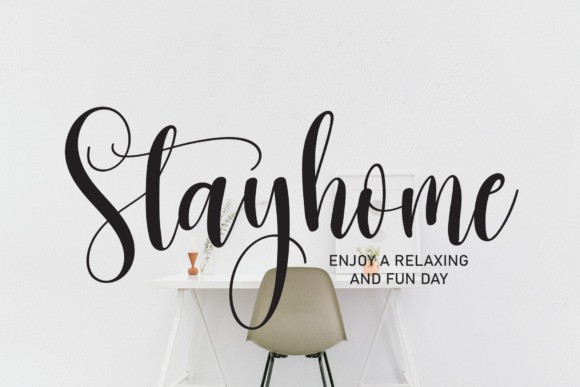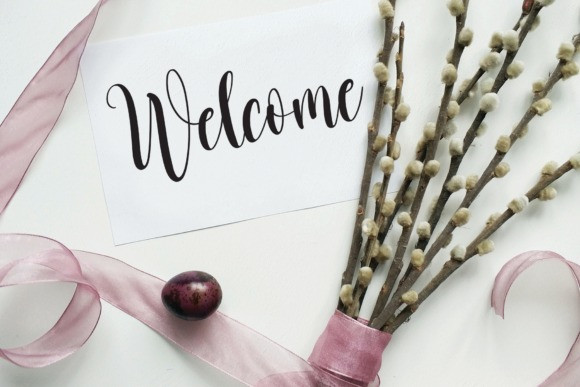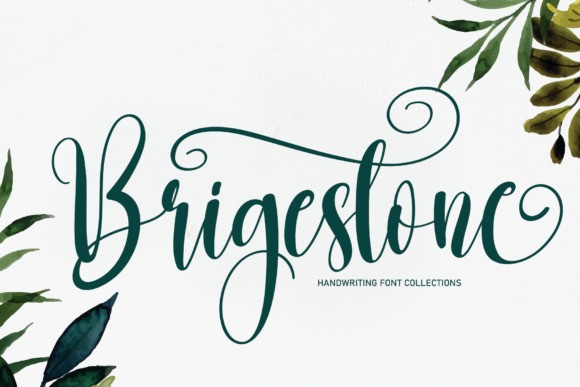
Brigestone Font
Brigestone Font is a lovely script font that flows beautifully to create outstanding typography. It is perfect for wall displays, wedding invitations, social media post logos, advertisements, product packaging, product designs, labels, photography, watermarks, invitations, stationery, and any project that requires a handwritten taste.